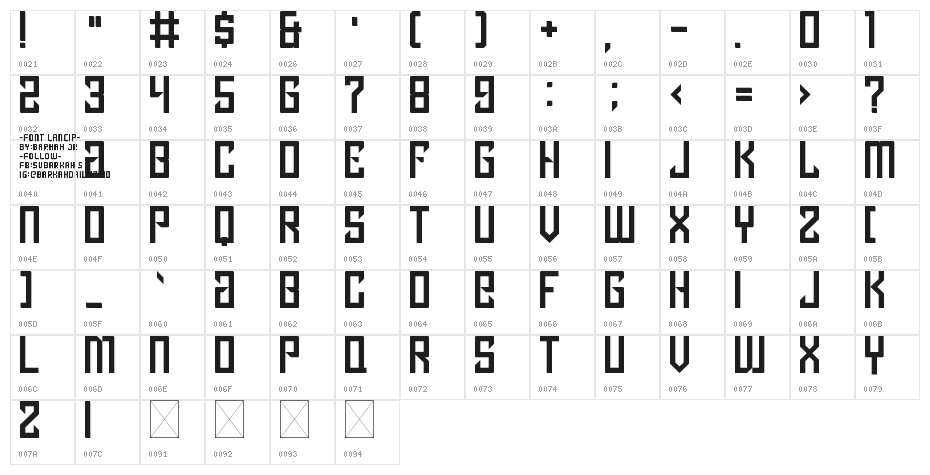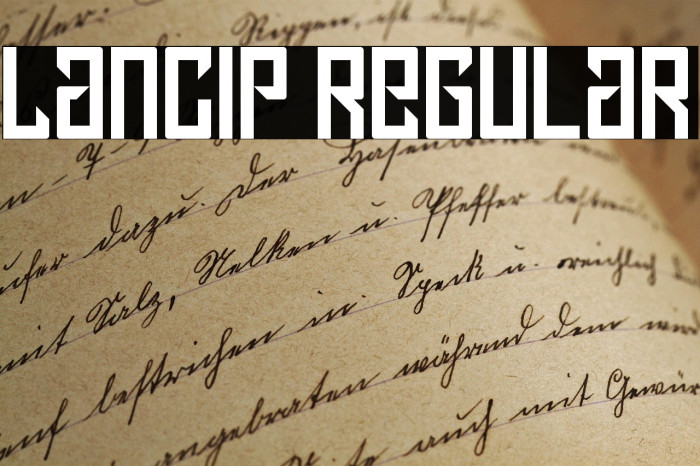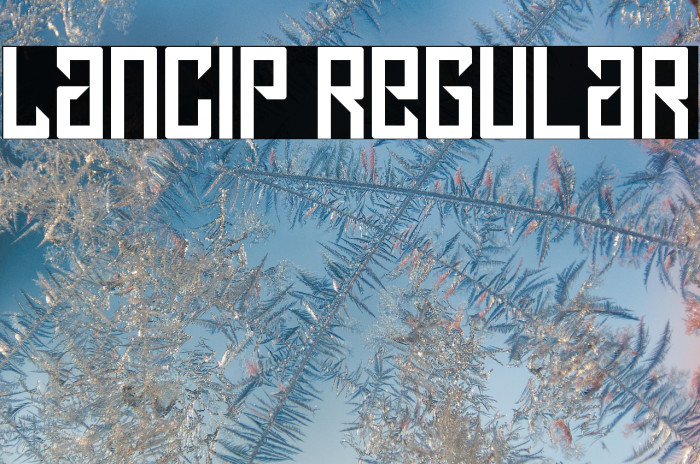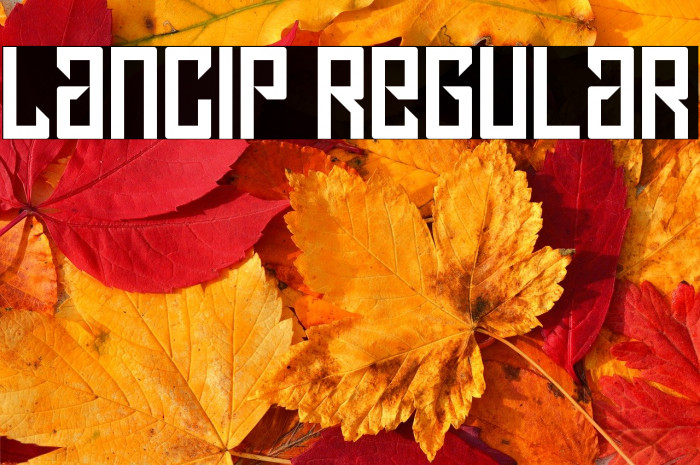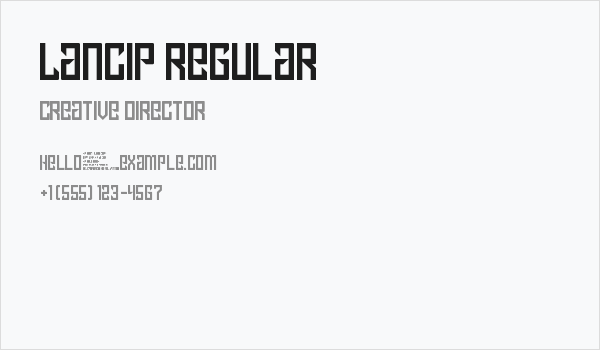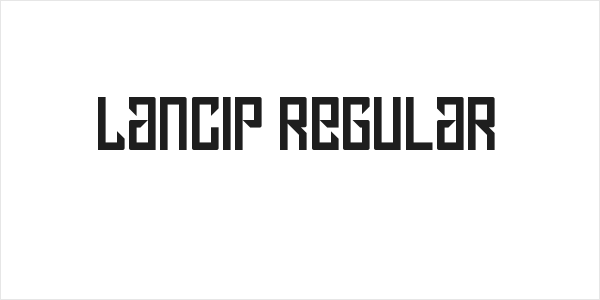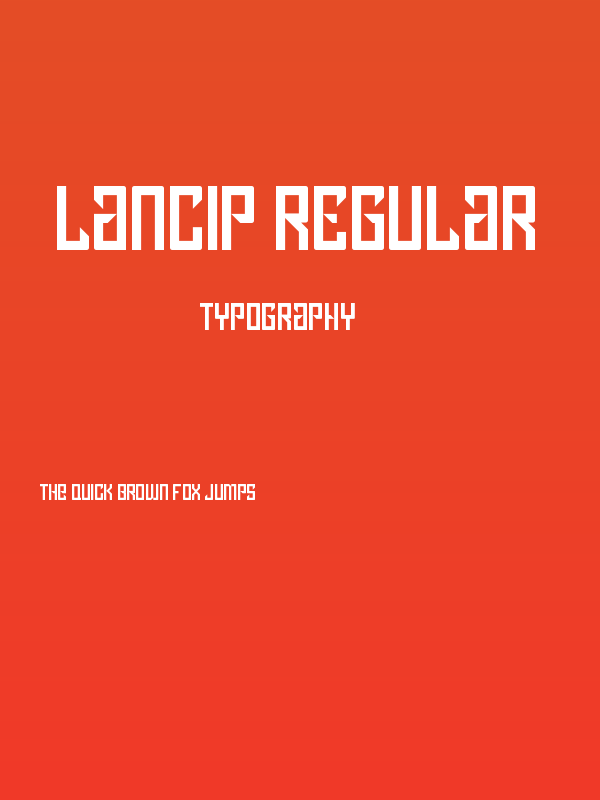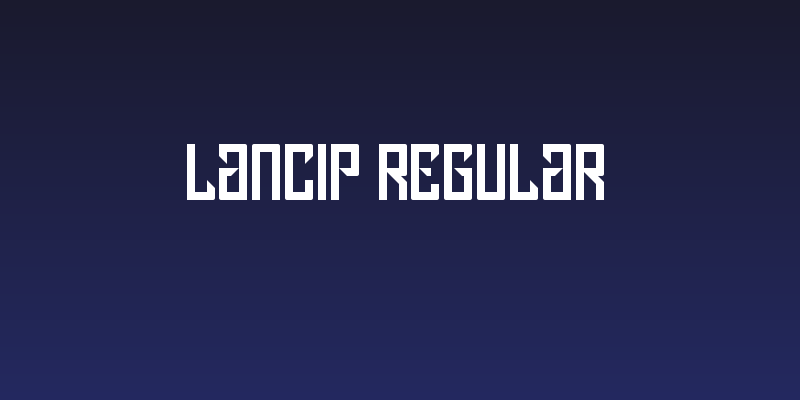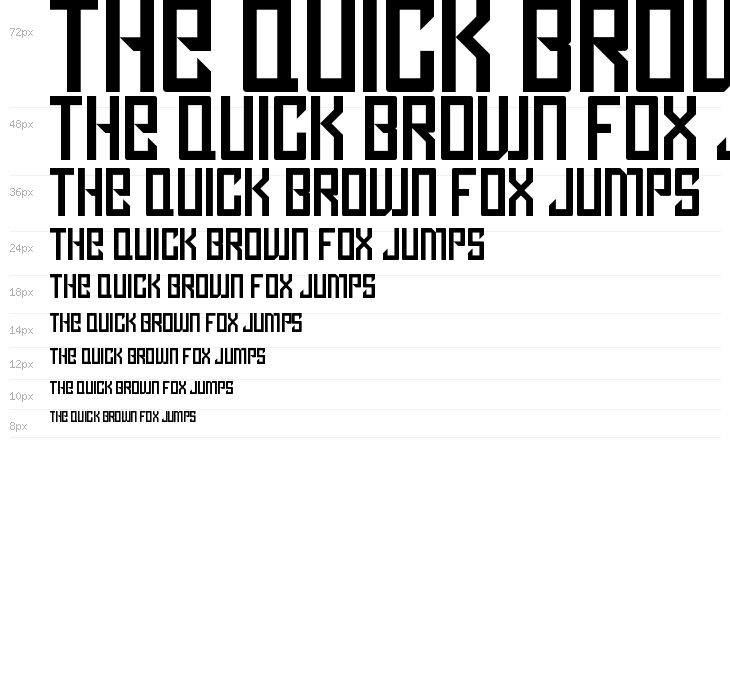
Lancip Regular Font
Lancip Regular Description
This font features a bold, geometric design with sharp angles and a modern aesthetic. Each character is crafted with precision, showcasing a uniform stroke width that maintains consistency throughout the set. The uppercase letters are particularly striking, with a blocky, architectural feel that suggests strength and stability. The numerals and special characters follow the same design principles, ensuring a cohesive look across all text. This font is ideal for making a strong visual impact, whether used in headlines, posters, or branding materials.
| Proposed Projects | Ideal for branding, posters, headlines, and any project requiring a strong visual impact. |